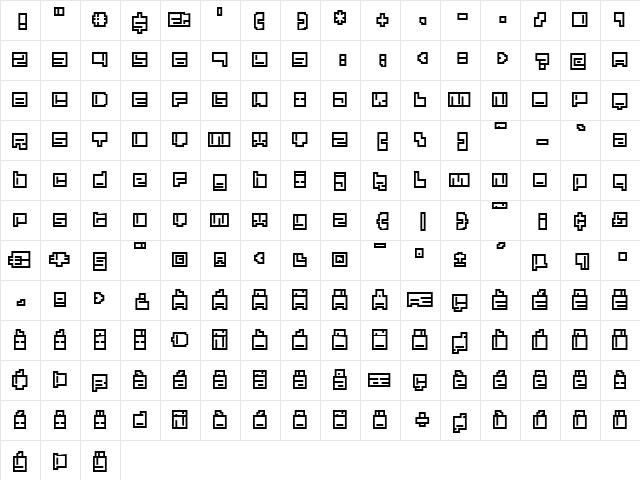
Mezcal-Outline Regular Font Preview
Mezcal-Outline Regular
Mezcal-Outline Regular Font Details
Design Context for Mezcal-Outline Typeface
Mezcal-Outline is built around its visual character rather than neutral utility — its distinctive forms are designed to make an impression at display sizes.
Font Pairing: Pair with a clean neutral sans-serif for body copy to let Mezcal-Outline's character lead without overwhelming the composition.
Pro Tip: Use Mezcal-Outline exclusively at display sizes — it was designed to be seen, not read at length. Let a neutral companion handle body copy.